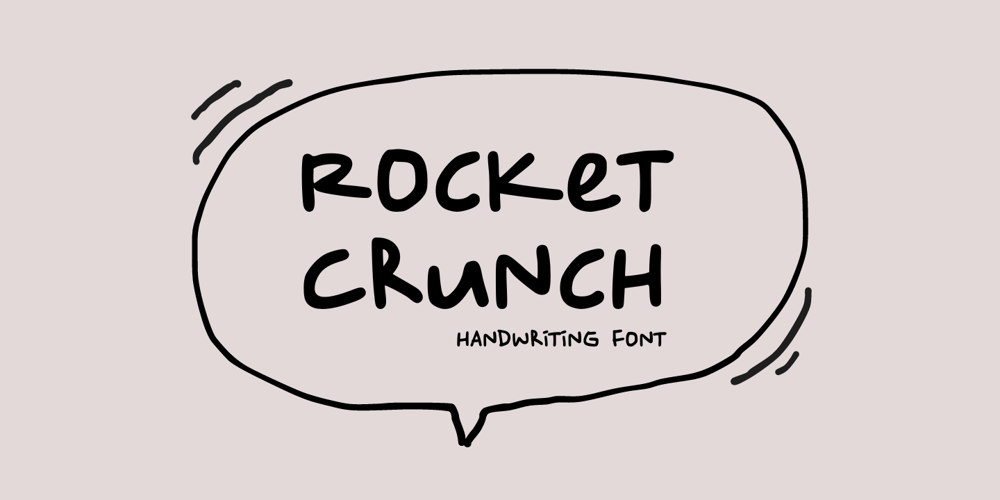
Rocket Crunch
Rocket Crunch font
Rocket Crunch Font Family was designed by Muhamad Yusron Billah and published by Sronstudio. Rocket Crunch contains 1 styles and family package options. Rocket Crunch is a playful handwritten font with a bold, energetic feel. Its quirky, natural strokes make it perfect for adding a fun, personal touch to your projects. Whether you’re designing for posters, invitations, or branding, Rocket Crunch brings a unique and lively character to your work, giving it a fresh and creative vibe.Included:-Upper & Lowercase- Numeral & Punctuation- PUA Encoded- Multilingual support- Simple Installation- Work both on Mac and WindowsThank you very much ๐Ÿ™‚